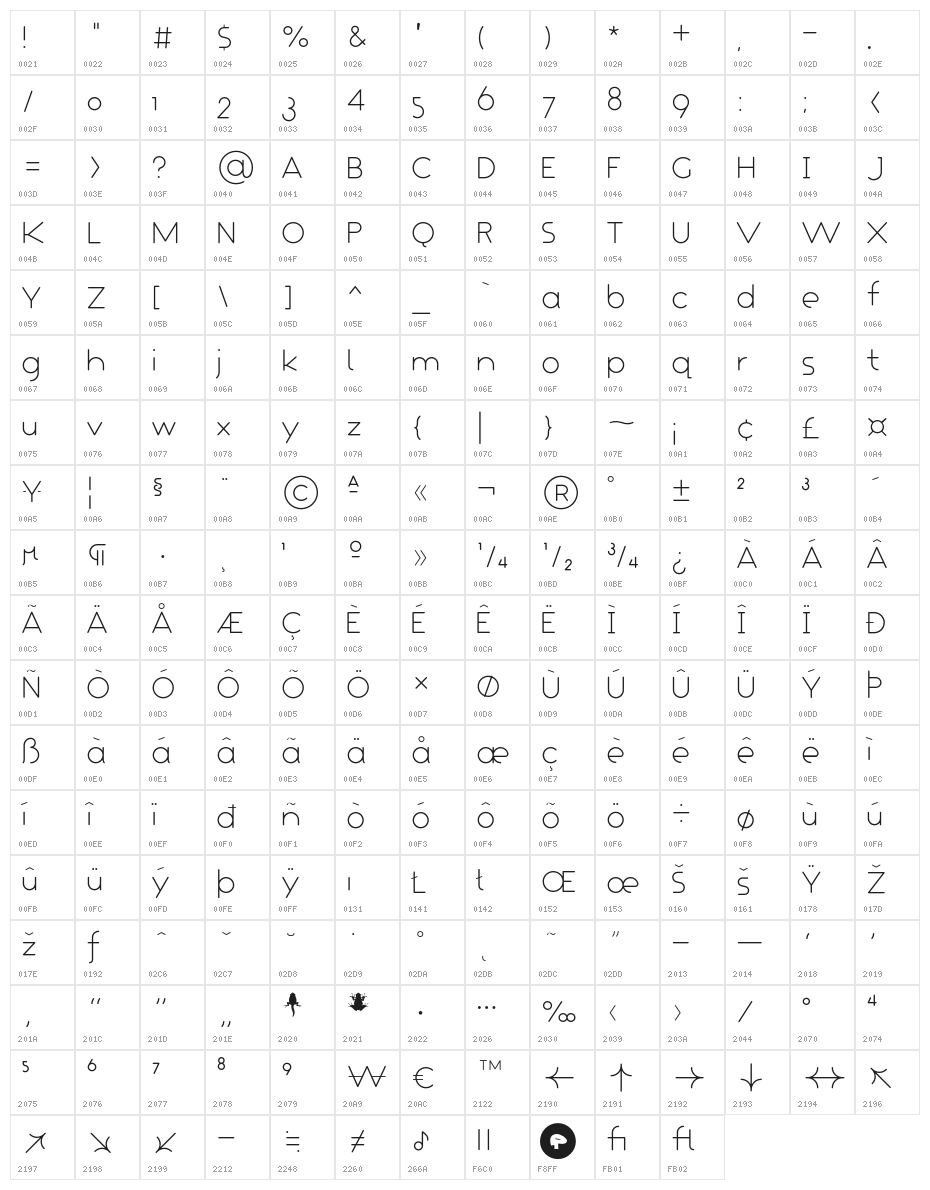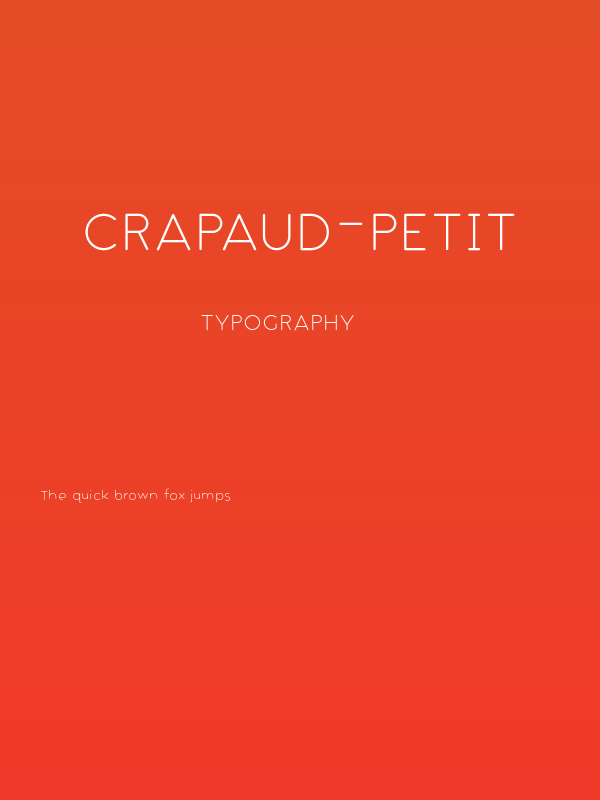
Crapaud-petit Font
Crapaud-petit Description
This font features a clean and modern design with a geometric structure. The characters are evenly spaced, providing a balanced and harmonious appearance. The uppercase letters are tall and slightly condensed, while the lowercase letters maintain a consistent height, creating a uniform look. The numerals are distinct and easy to read, with a slight curve that adds a touch of elegance. Special characters are well-integrated, maintaining the overall aesthetic. The font's simplicity and clarity make it versatile for various design applications.
| Proposed Projects | Ideal for branding, editorial design, websites, and digital interfaces where clarity and modernity are key. |